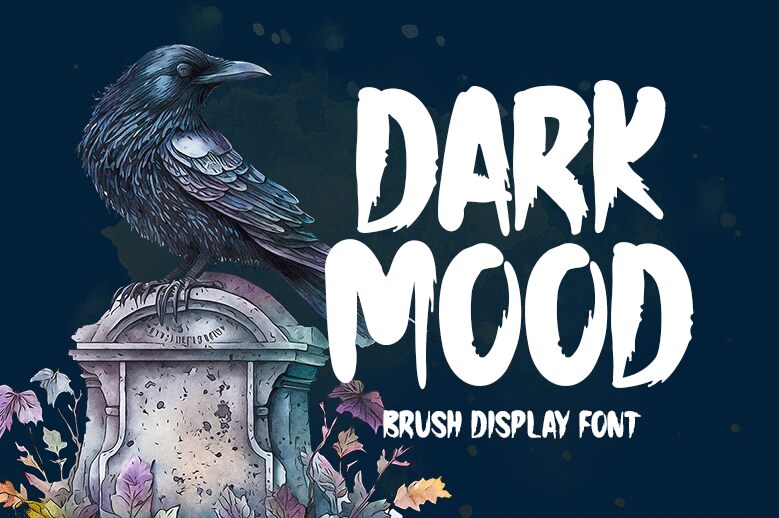
Dark Mood
Dark Mood, designed by Md Shohail Bhuian, is a bold holiday font with a touch of halloween and brush style. Its uniqueness and interesting design make it perfect for projects that need an edgy and mysterious vibe.
Whether you're creating spooky party invitations, haunted house flyers, or even designing eerie Halloween-themed websites, Dark Mood is the go-to font for adding a dose of excitement and intrigue. Its versatility allows it to stand out in any context, making it an excellent choice for those looking to make a statement.